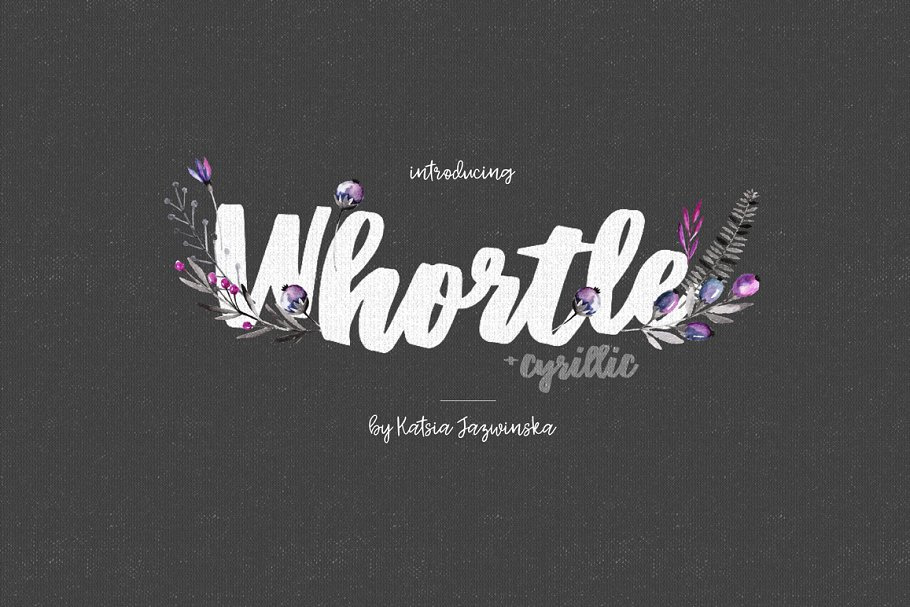
Whortle Font
This font is perfect for branding, website headings, posters, social media graphics, packaging, and editorial designs. Its sharp lines and contemporary style make it suitable for both corporate and creative projects.
What makes Whortle Font Free Download exciting is its unique balance of simplicity and character. It brings a fresh, modern vibe to your text while maintaining excellent readability, making every design feel polished and engaging.
The font family of Whortle includes multiple weights such as Light, Regular, Bold, and Italic, allowing designers to experiment with emphasis and hierarchy. This flexibility ensures consistency and adaptability across different media and platforms.
Overall, Whortle Font Free Download is an essential choice for designers seeking a sleek, modern typeface. From professional branding to standout social media posts, this font adds style, clarity, and impact to any project.